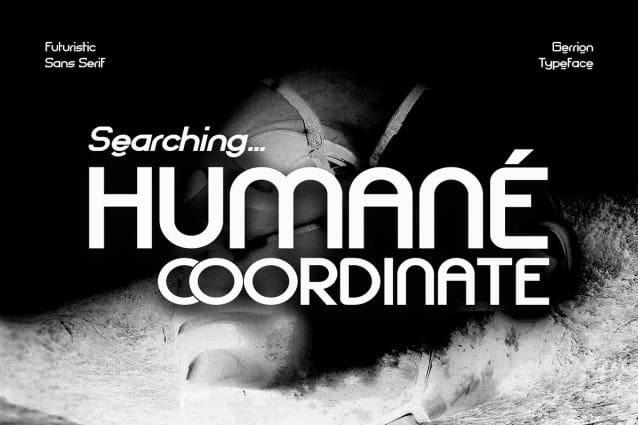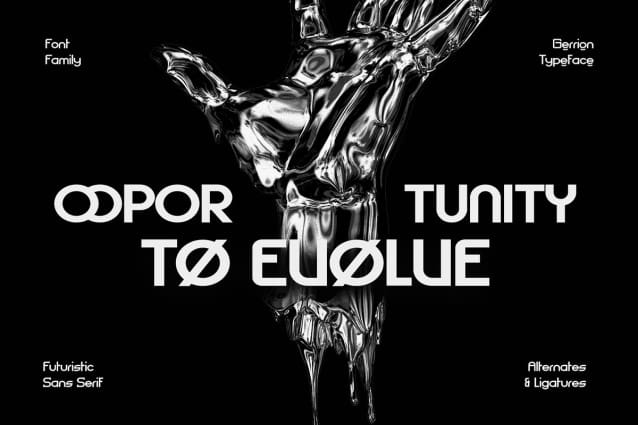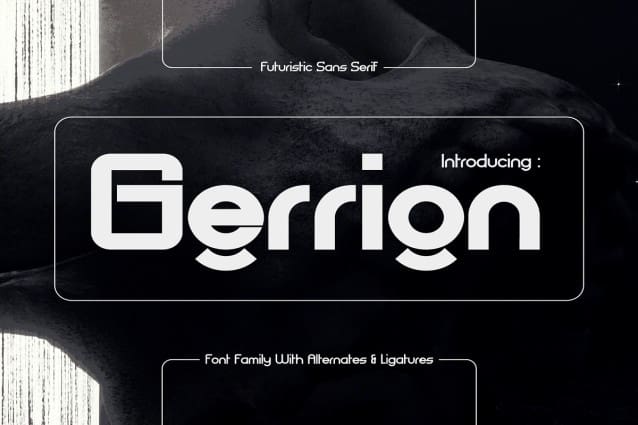
Gerrion Font Family
Gerrion Font Family is a captivating futuristic sans-serif font that embodies a sense of modern sophistication. Encompassing six styles (regular, italic, semibold, semibold italic, bold, and bold italic), Gerrion offers remarkable versatility for your design endeavors. Gerrion’s letters are meticulously crafted with clean, geometric shapes. This focus on sharp lines and perfect curves creates a crisp and modern aesthetic, ideally suited for technological advancements, innovative products, and forward-thinking design projects.
Gerrion Font Family is Ideal for: Futuristic logos and branding that demand attention and convey a sense of innovation, Website designs and user interfaces that crave a sleek and modern aesthetic, Tech product packaging and marketing materials that radiate cutting-edge style, Editorial layouts and headlines that seek a bold and futuristic look, Any design project where a clean, geometric, and forward-thinking font is desired.